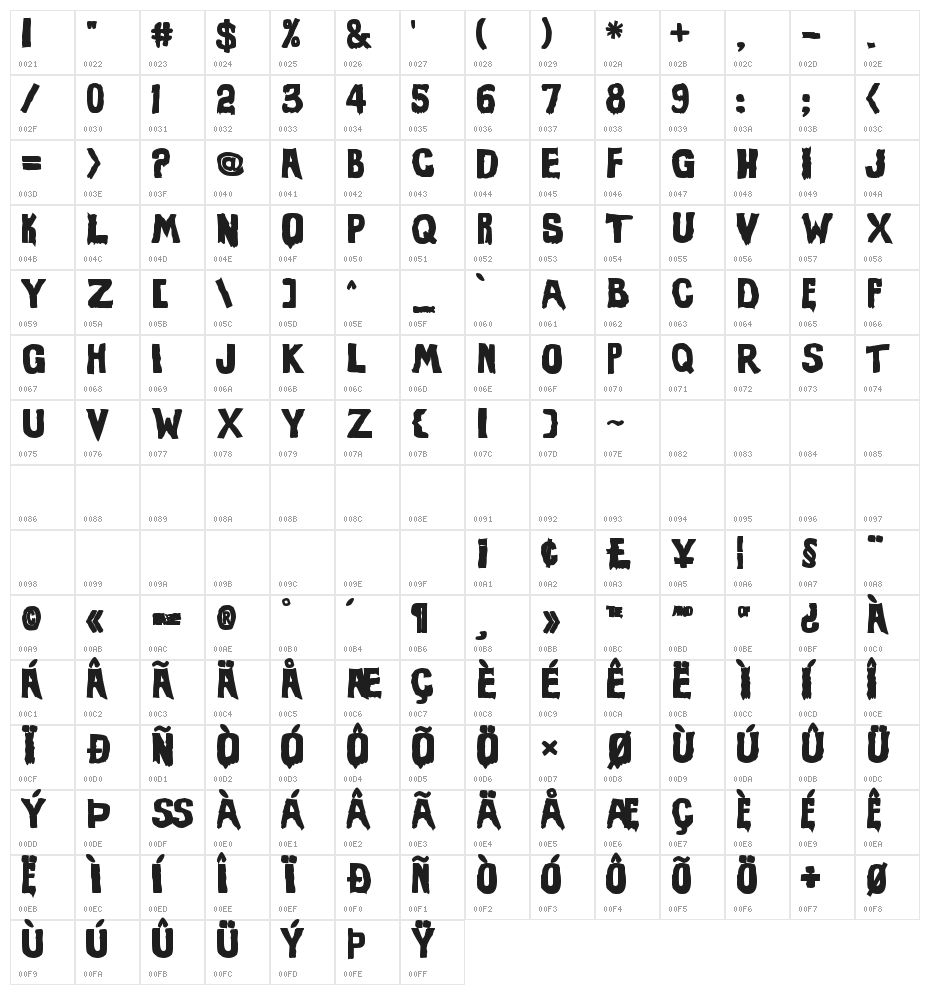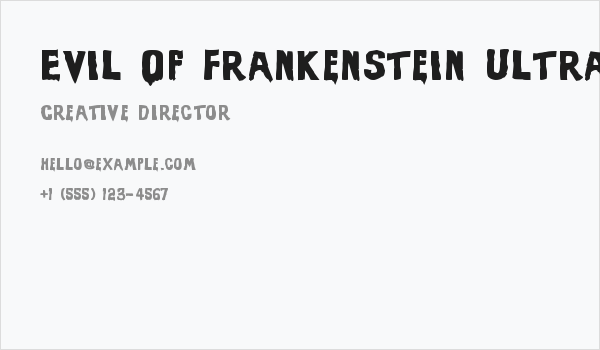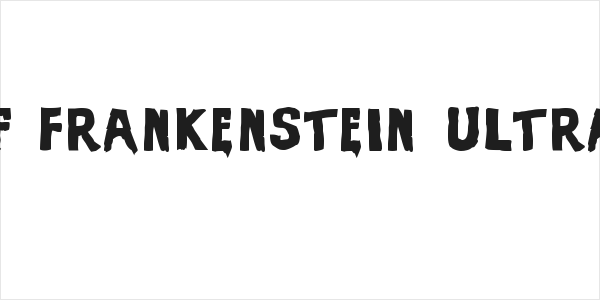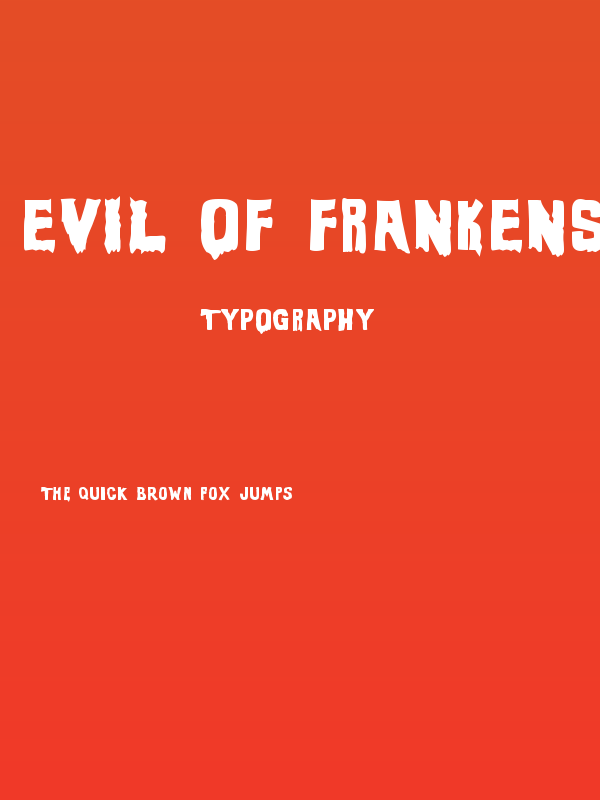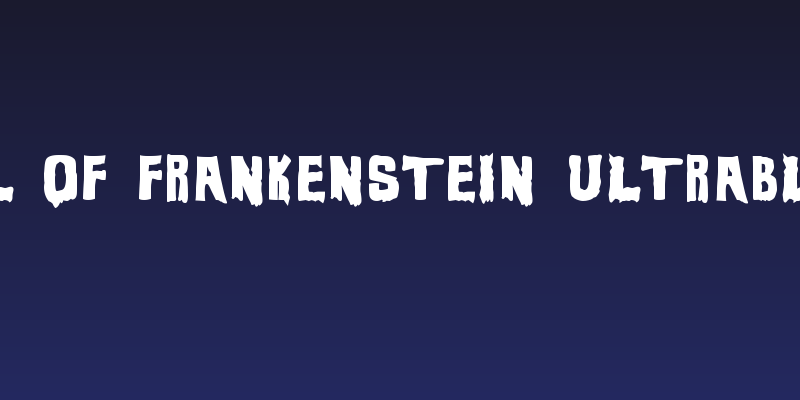
Evil Of Frankenstein UltraBlack Font
Evil Of Frankenstein UltraBlack Description
This font exudes a bold and eerie aesthetic, reminiscent of classic horror themes. The characters are heavily stylized with jagged edges and irregular forms, creating a sense of unease and drama. The uppercase and lowercase letters maintain a consistent height, while the numbers and special characters follow the same unsettling design. The overall appearance is both striking and memorable, making it ideal for projects that require a dramatic and spooky touch. Its thick strokes and unique shapes ensure high visibility and impact.
| Use Case | Headlines, Posters, Logos |
| Proposed Projects | Ideal for Halloween-themed designs, horror movie posters, spooky event invitations, and themed merchandise. |